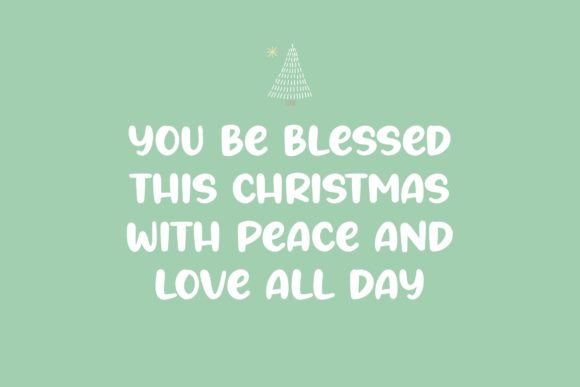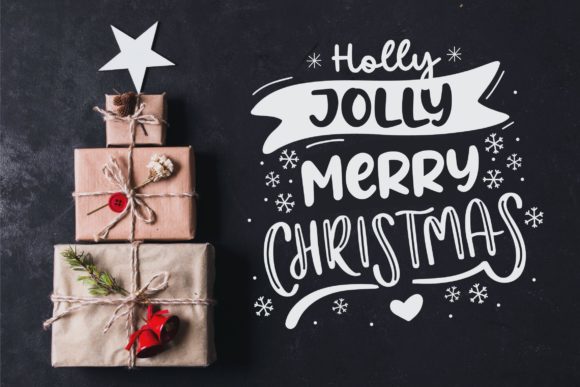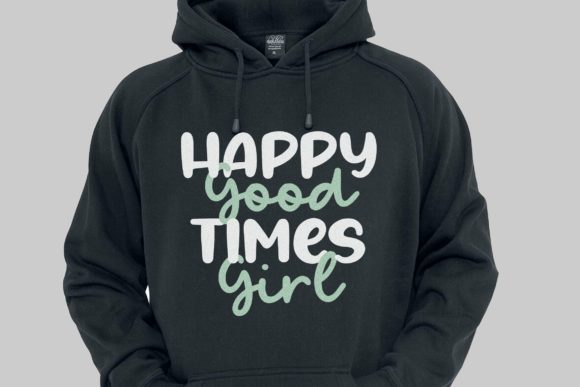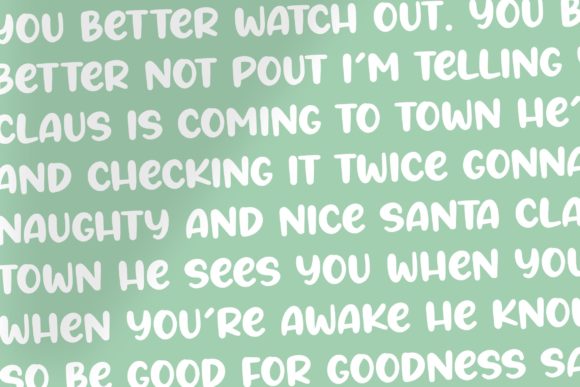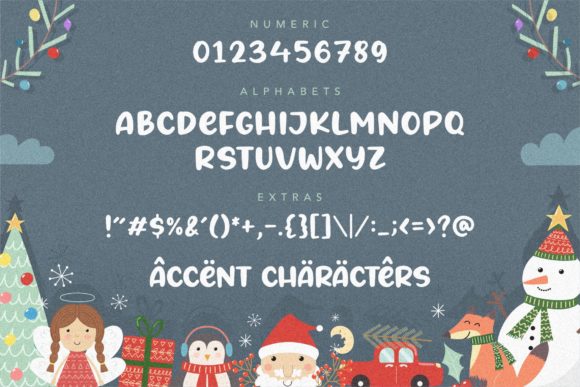
About Angels Cookie Font
Angels Cookie is a fun and sweet brushed handwritten font. Whether you’re looking for fonts for Instagram or calligraphy scripts for DIY projects, this font will turn any creative idea into a true piece of art!